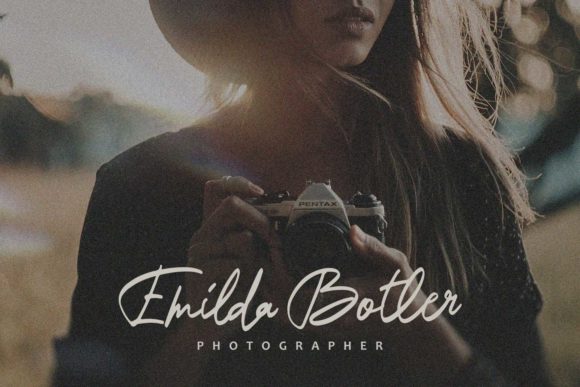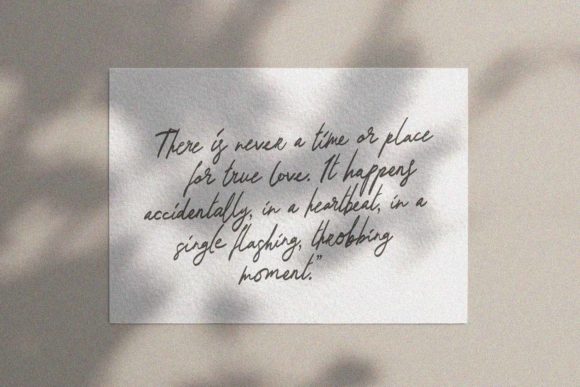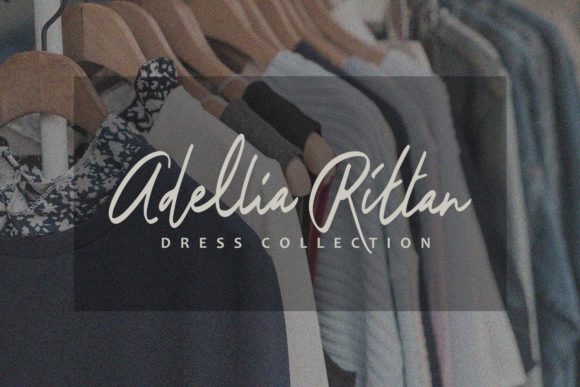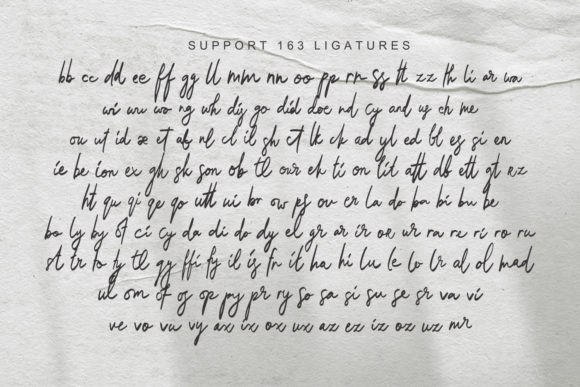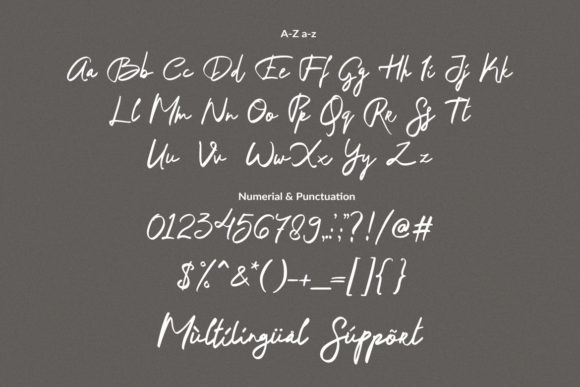
The Perfect Script for Your Masterpiece: Authentive Font
Do you remember that moment when you finally found the perfect font to elevate your design project from good to great? For many designers, this is the holy grail of creative moments. It’s the spark that ignites the imagination and sets the tone for a masterpiece.
Enter the Authentive Font, a beautiful and refined script font that’s sure to leave a lasting impression. With its classy, elegant, and modern look, this font is perfect for a wide range of creations, from wedding invitations to branding materials. And with its PUA encoding, you’ll have access to all the amazing glyphs and ligatures that will take your designs to the next level.
As a designer, you know that the right font can make all the difference in communicating your message and leaving a lasting impression. That’s why the Authentive Font is a valuable addition to your toolkit – it’s the perfect way to add a touch of sophistication and elegance to your designs.
Authentive Font Key Features
- Font Family: Authentive Font offers a range of 12 unique font styles, each with its own distinct personality and flair.
- Character Set: The font includes over 500 characters, including Latin, Cyrillic, and Greek alphabets, as well as a range of punctuation marks and symbols.
- Unique Characteristics: Authentive Font features a unique blend of modern and vintage elements, with intricate details and subtle texture, giving it a distinctive and eye-catching appearance.
Authentive Font Review
Overall, I think Authentive Font is a decent addition to any designer’s toolkit. It has a unique, authentic feel that’s perfect for creating a vintage or retro vibe in your designs. ✨ The font’s irregularities and imperfections add a layer of character that can make your work stand out from the crowd.
Here are some of the things that I think work well with Authentive Font:
- ✨ Unique and authentic feel
- ✨ Perfect for vintage or retro designs
- ✨ Irregularities and imperfections add character
- ✨ Suitable for a wide range of applications, from logos to posters
- ⚠️ Can be difficult to read in smaller sizes
- ⚠️ May not be suitable for formal or professional designs
- ⚠️ Limited character set and language support
In terms of overall impression, I think Authentive Font is a great choice for designers who want to add some personality to their work. While it may not be suitable for every project, it’s definitely worth considering for designs that require a unique and authentic feel.
Authentive Font is commonly used in:
1. Branding and identity design.
2. Marketing materials, such as brochures and flyers.
3. Digital products, such as e-books and presentations.